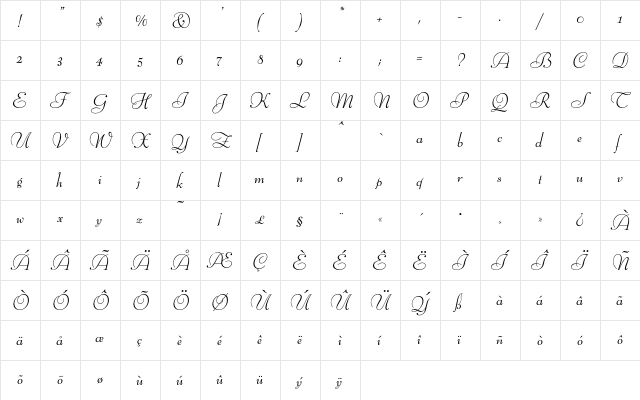
BernhardSchoenschriftEF Light
Design Context for BernhardSchoenschriftEF Typeface
BernhardSchoenschriftEF is a composed and adaptable typeface that performs quietly and consistently across a wide range of design contexts. The delicate stroke weight brings airiness and refinement to layouts.